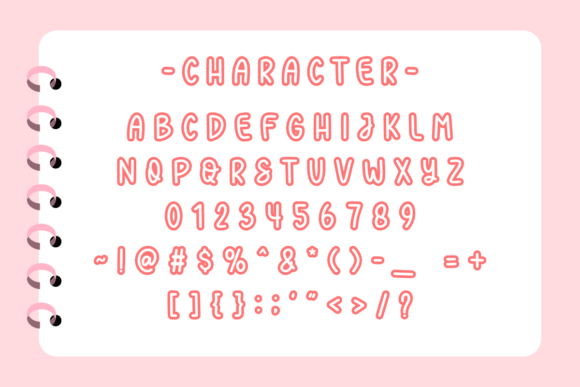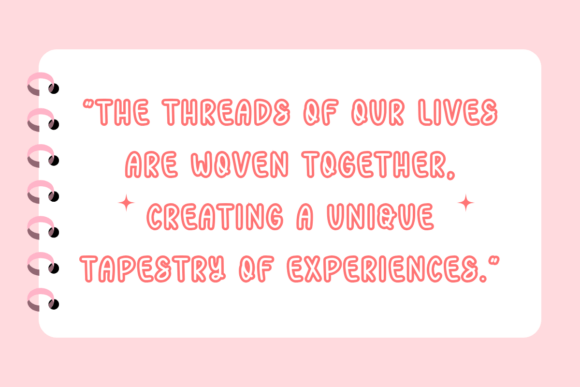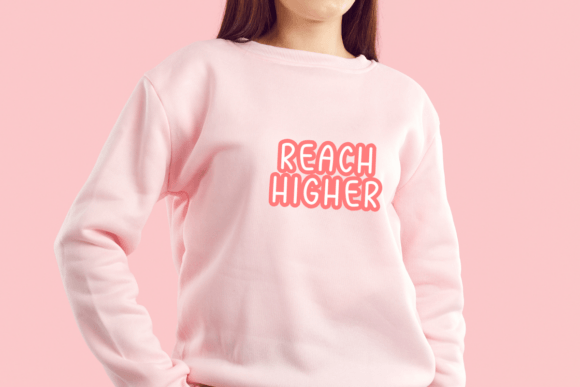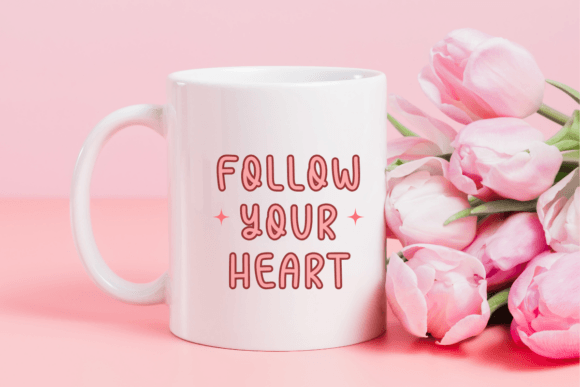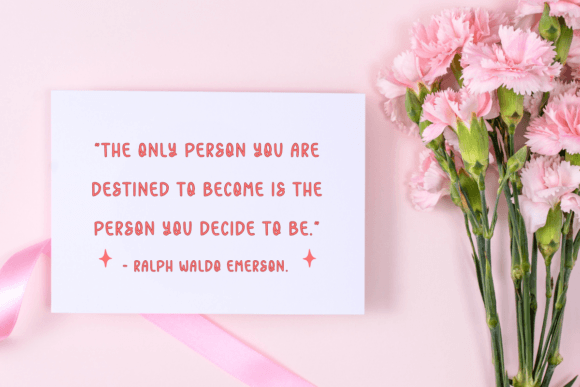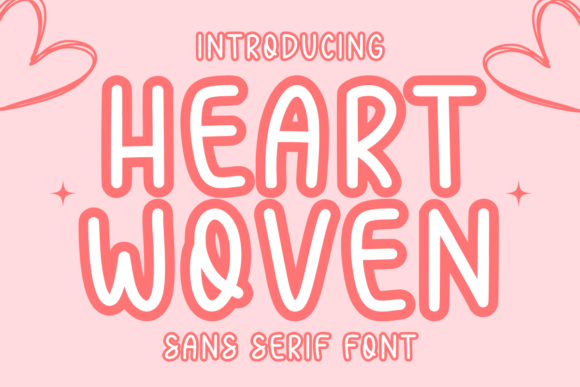
Introducing Heart Woven Font: The Perfect Blend of Clean, Modern, and Friendly
In the world of typography, fonts play a crucial role in conveying the message and tone of a design. For designers and crafters, finding the right font can be a daunting task, especially when it comes to creating visually appealing and engaging content. This is where Heart Woven Font comes into play – a clean and modern sans serif font that exudes a friendly feel. In this article, we’ll dive into the features and benefits of Heart Woven Font, and explore how it can elevate your designs to the next level.
Clean and Modern Design
Heart Woven Font boasts a sleek and contemporary design that is perfect for a wide range of applications. Its smooth, simple letters make it easy to read, even at smaller font sizes. The clean lines and minimalist aesthetic of this font ensure that your message is conveyed clearly and effectively, without any distractions. Whether you’re designing a logo, poster, or social media graphic, Heart Woven Font provides a solid foundation for your creative project.
Friendliness and Approachability
What sets Heart Woven Font apart from other sans serif fonts is its friendly feel. The font’s rounded edges and gentle curves give it a welcoming and approachable vibe, making it perfect for designs that require a personal touch. Whether you’re creating a brand identity, advertising campaign, or social media content, Heart Woven Font helps to establish a connection with your audience and convey a sense of warmth and approachability.
Versatility and Readability
One of the key benefits of Heart Woven Font is its versatility and readability. The font is designed to be highly legible, even at smaller font sizes, making it perfect for a wide range of applications, from body text to headings. Additionally, the font’s simple and clean design ensures that it pairs well with a variety of other fonts and design elements, giving you the flexibility to experiment with different creative combinations.
Perfect for Logos, Posters, and Social Media Designs
Heart Woven Font is particularly well-suited for designs that require a bold and eye-catching font. For logos, the font’s clean and modern design makes it easy to recognize and remember, while its friendly feel helps to establish a connection with your target audience. For posters and social media graphics, the font’s readability and versatility make it perfect for conveying your message and grabbing the attention of your audience.
Adding a Stylish and Welcoming Touch
Heart Woven Font adds a stylish and welcoming touch to any project, making it perfect for designers and crafters who want to create visually appealing and engaging content. The font’s clean and modern design ensures that your project looks professional and polished, while its friendly feel helps to establish a connection with your audience. Whether you’re designing a brand identity, advertising campaign, or social media content, Heart Woven Font provides the perfect blend of style and approachability.
- Clean and modern sans serif font with a friendly feel
- Smooth, simple letters make it easy to read
- Perfect for logos, posters, social media designs, and more
- Highly legible, even at smaller font sizes
- Versatile and pairs well with a variety of other fonts and design elements
- Adds a stylish and welcoming touch to any project
In conclusion, Heart Woven Font is a versatile and stylish font that is perfect for designers and crafters who want to create visually appealing and engaging content. Its clean and modern design, friendly feel, and high readability make it perfect for a wide range of applications, from logos and posters to social media graphics and more. Whether you’re looking to establish a brand identity, create an advertising campaign, or simply add a touch of style to your project, Heart Woven Font is the perfect choice.